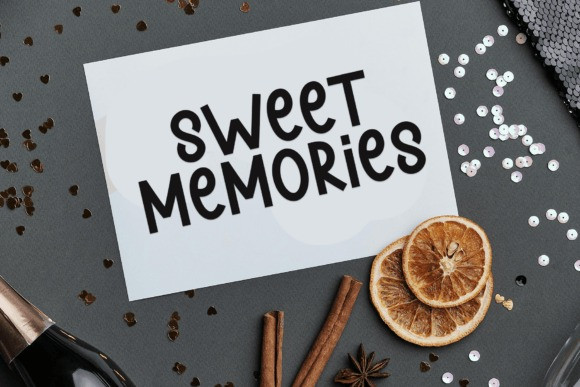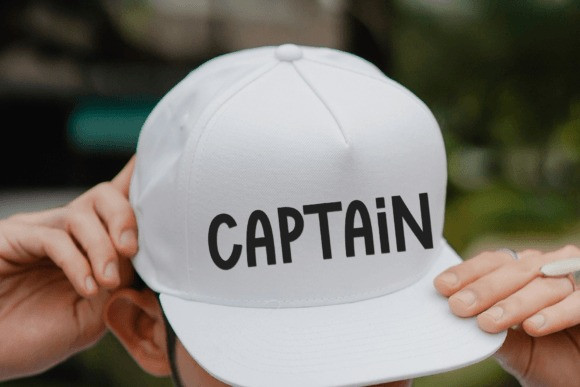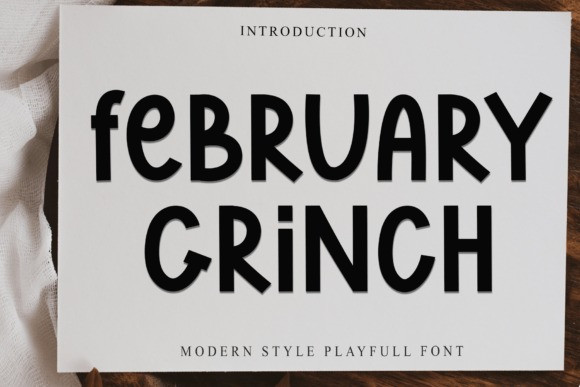
February Grinch Font
February Grinch Font is a bold and playful font with a modern touch, featuring quirky letterforms that bring personality to your designs. Perfect for posters, headlines, invitations, and creative projects, this typeface adds a fun and energetic vibe to any composition. Let February Grinch make your designs stand out!